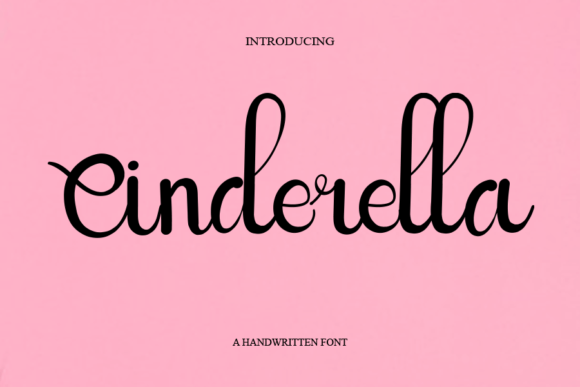
Cinderella Handwritten Font – Stylish and Smooth Typeface
The Cinderella Handwritten Font is a graceful and elegant script typeface designed to bring sophistication and creativity to your projects. With its flowing handwritten strokes and polished look, it adds a timeless style to any design. Whether you’re working on crafts, branding, or invitations, this font makes your work stand out with elegance.
A Script Font with Style
The Cinderella Handwritten Font blends smooth handwritten curves with a modern structure. Its balanced proportions make it approachable, while its clarity ensures that text remains easy to read. Because of this balance, it is ideal for projects that require both style and practicality.
Perfect for Crafts and Greeting Cards
One of the most popular uses of the Cinderella Handwritten Font is in greeting cards, posters, and invitations. Its stylish strokes add warmth and personality to personal projects. At the same time, it enhances branding, product packaging, and DIY crafts with a handwritten charm that feels both professional and personal.
The Cinderella Handwritten Font adapts beautifully to many uses. From social media graphics and logos to product packaging and event materials, it provides a stylish handwritten edge. Its graceful flow makes it suitable for both print and digital projects, giving your work consistency and beauty.
Why Designers Love Cinderella Font
Designers love the Cinderella HandwrittenFont for its mix of elegance and usability. Its graceful handwritten style makes designs unique, while its readability ensures practicality. This versatility makes it a must-have addition to any font collection.
In summary, the Cinderella HandwrittenFont is a stylish, smooth, and versatile script typeface. With its flowing handwritten strokes, quick installation, and wide usability, it is perfect for invitations, crafts, posters, and branding. Don’t miss the chance to download Cinderella HandwrittenFont and add elegance to your creative projects.